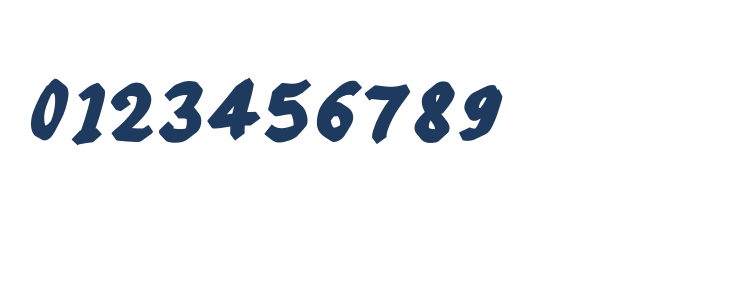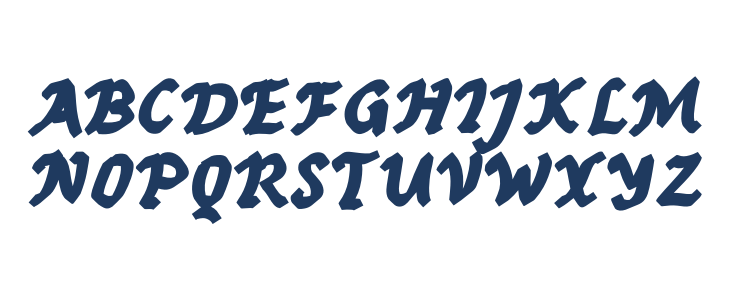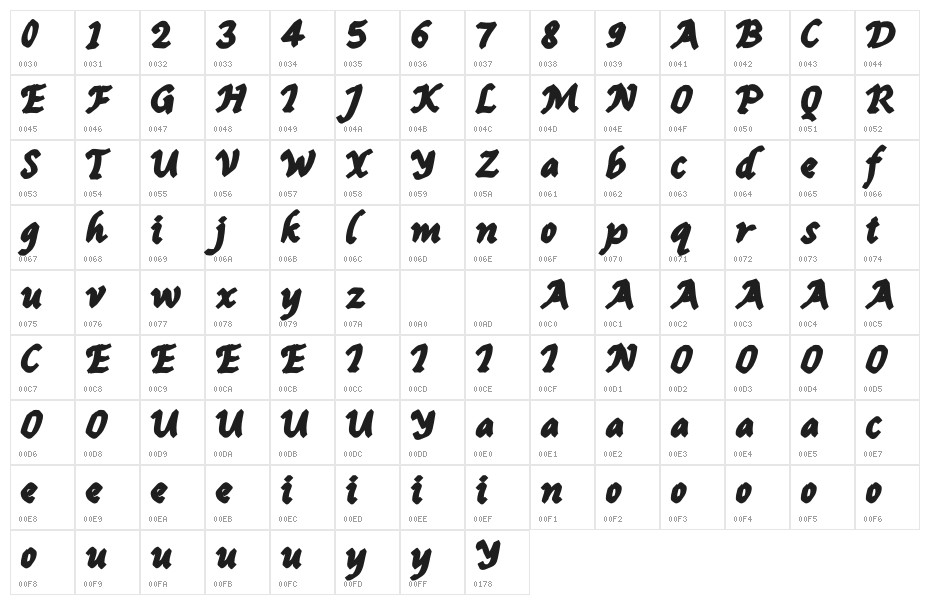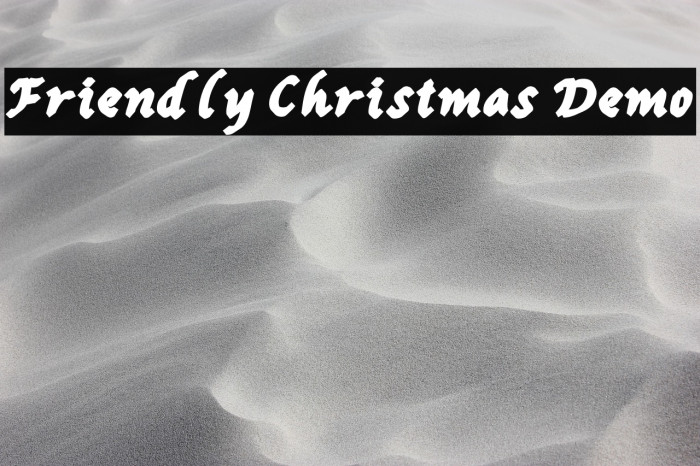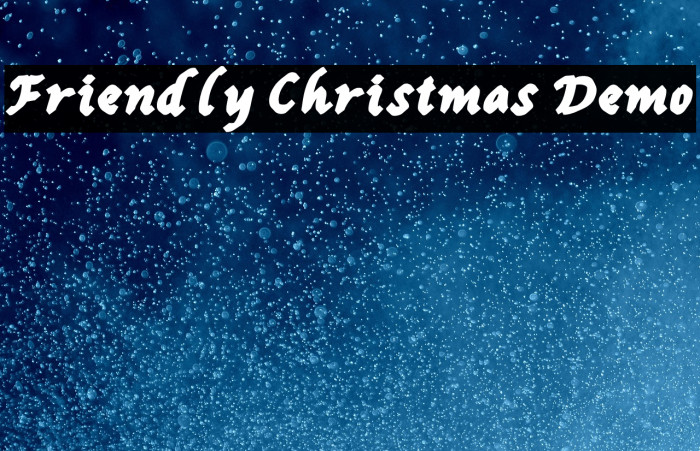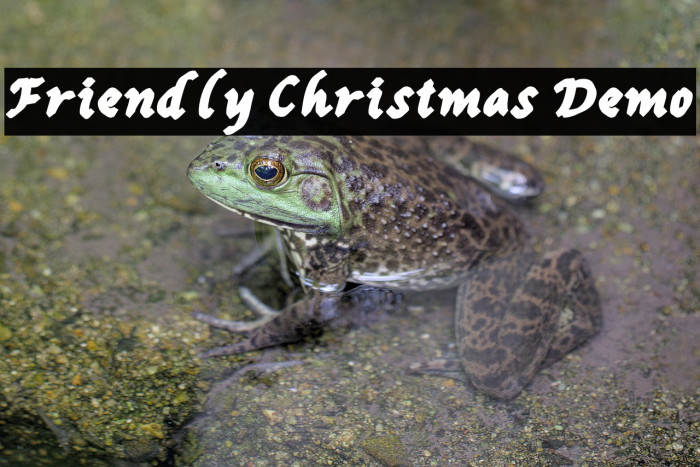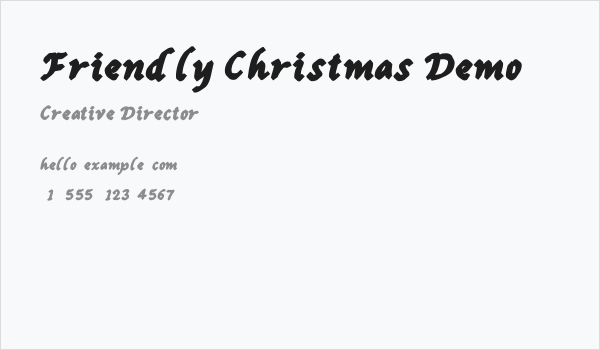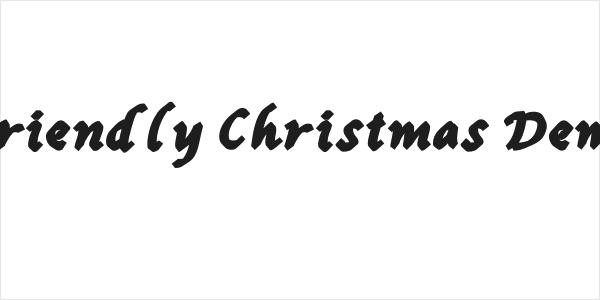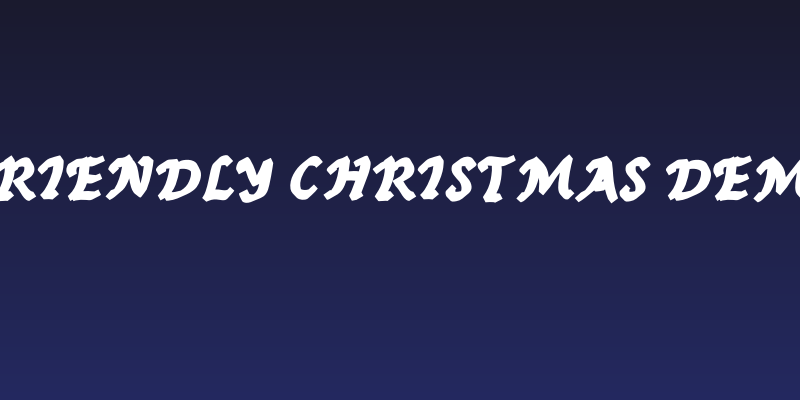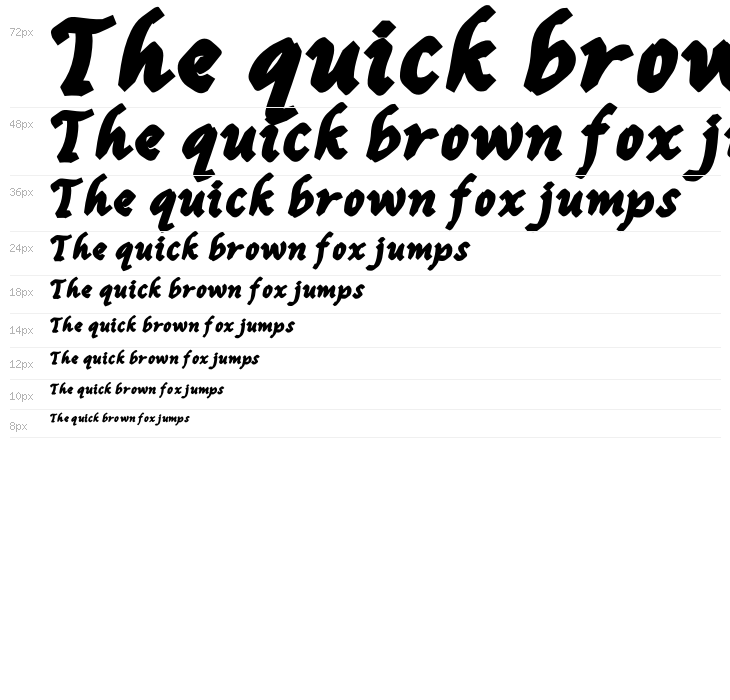
Friendly Christmas Demo Font
Friendly Christmas Demo Description
A bold, decorative script font with a calligraphic, brush-like appearance and pronounced angular strokes, evoking a festive and traditional feel.
| Overall Style | Decorative, Festive, Traditional |
| Use Case | Headlines, Logos, Greeting cards, Posters |
| Proposed Projects | Holiday cards, festive invitations, seasonal branding, decorative headlines. |